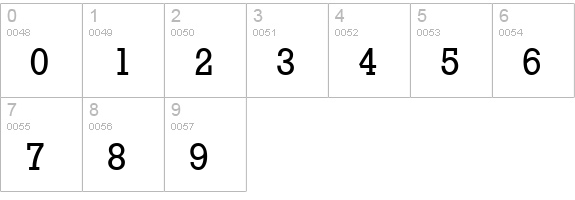
Rockney Regular is the standard, neutral variant in the Rockney typeface family \xE2\x80\x94 well suited to general body text, paragraphs, and standard typographic work.
Rockney Regular is a modern and stylish font that exudes sophistication and elegance. With its clean lines and subtle curves, this versatile typeface is perfect for a wide range of design projects, from branding to web design to print materials. The bold yet refined letterforms make a statement while remaining easy to read, making it ideal for both headlines and body text. This font is available for free download at FontsMarket.com, where you can easily access and utilize it in your projects without any cost. Whether you're a professional designer or a hobbyist looking to add a touch of class to your creations, Rockney Regular is sure to impress with its timeless appeal and impeccable design. Elevate your work with this exceptional font and let your creativity shine.